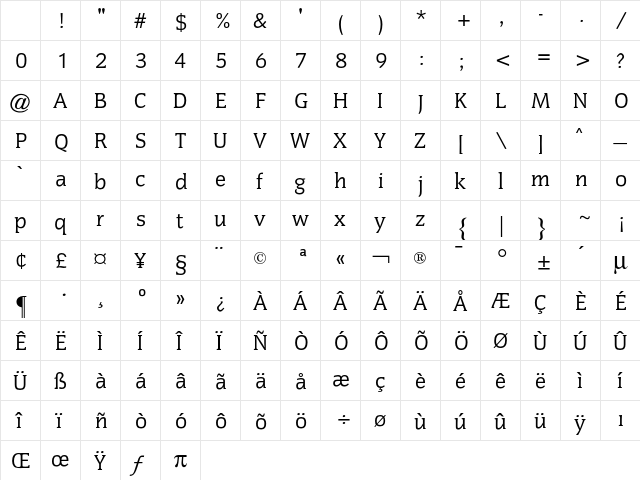
Complete Congress CG Regular glyph index. Displaying only characters natively supported by Congress CG Regular font.
Congress CG is a composed and adaptable typeface that performs quietly and consistently across a wide range of design contexts.